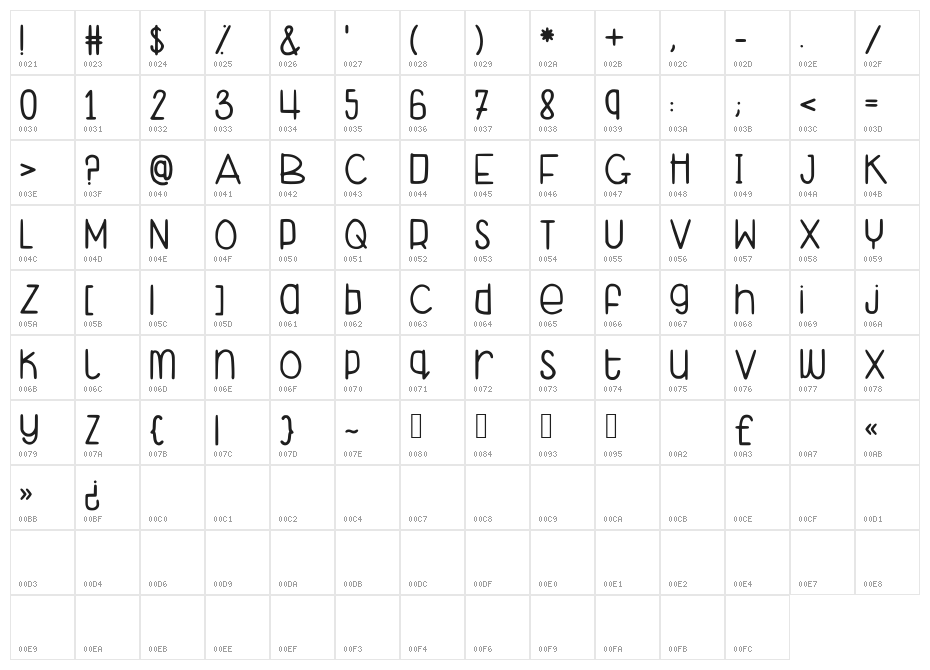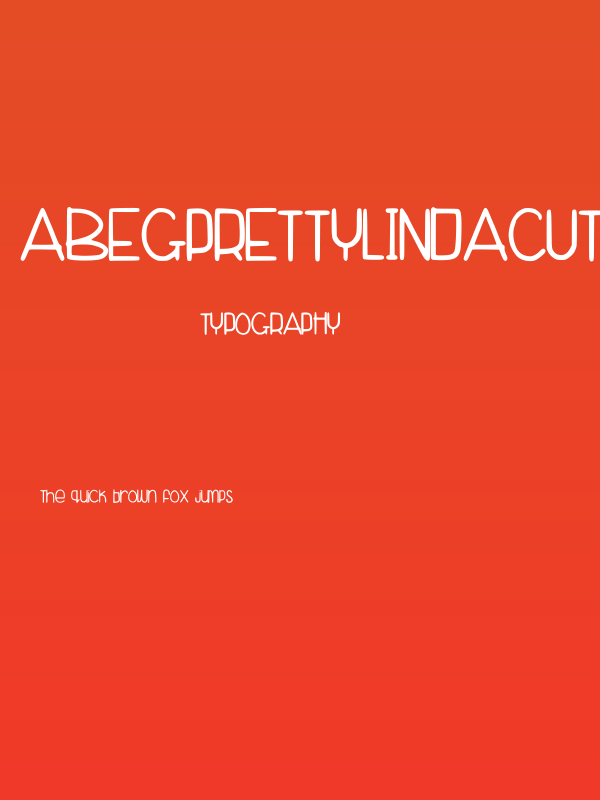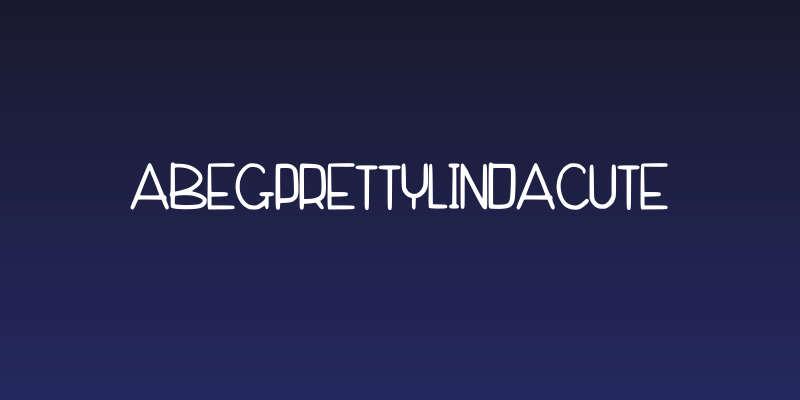
AbegPrettyLindaCute Font
AbegPrettyLindaCute Description
This font features a playful and rounded design, characterized by its smooth curves and consistent stroke width. The letters are evenly spaced, creating a harmonious and approachable appearance. The uppercase and lowercase letters maintain a uniform style, with the lowercase letters slightly smaller but equally rounded. The numerals and special characters follow the same design principles, ensuring a cohesive look across all elements. This font's simplicity and friendliness make it suitable for a variety of applications where a casual and inviting tone is desired.
| Proposed Projects | Ideal for children's books, playful branding, casual invitations, and friendly website headers. |